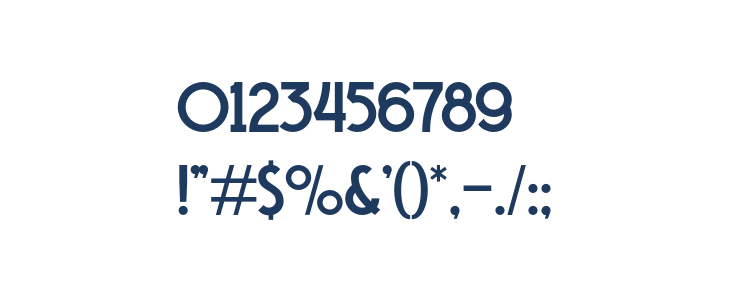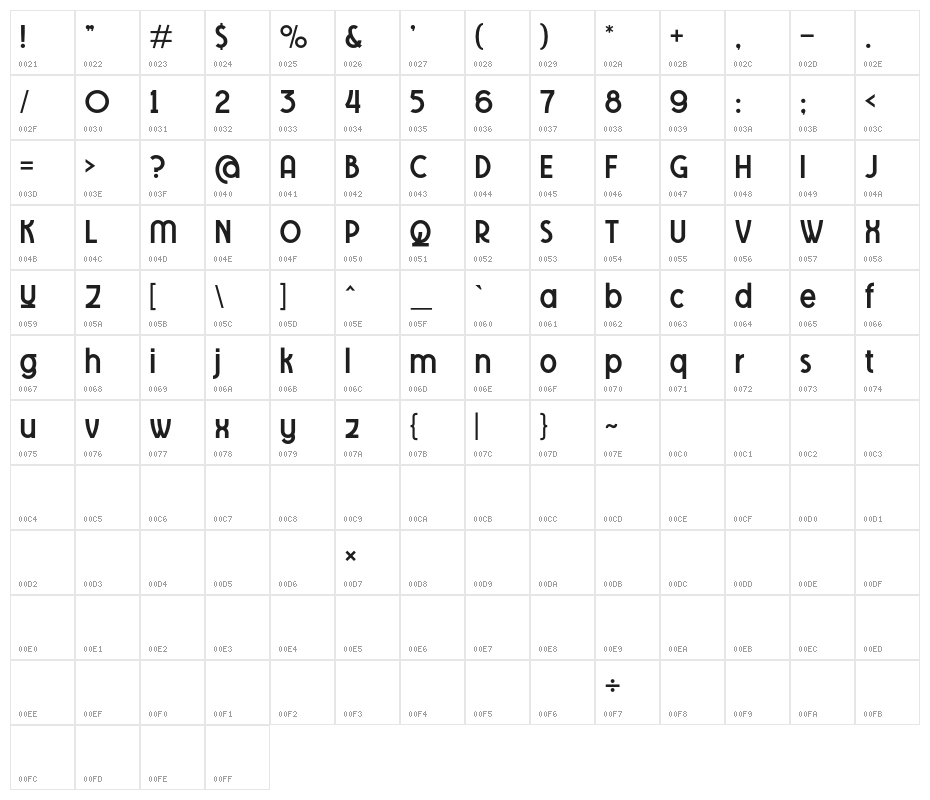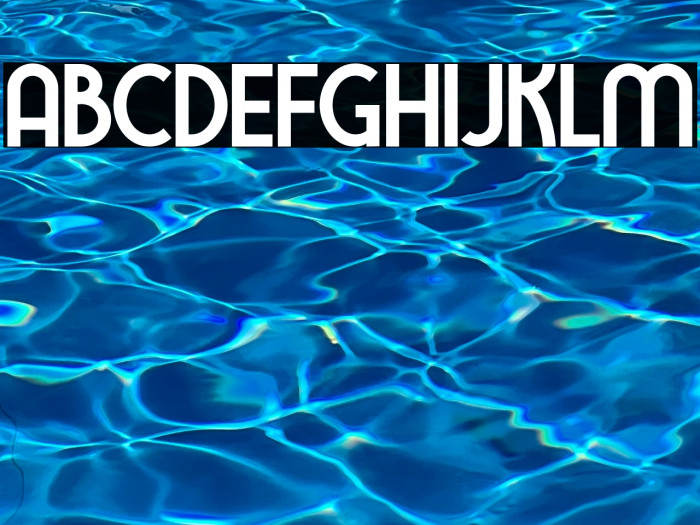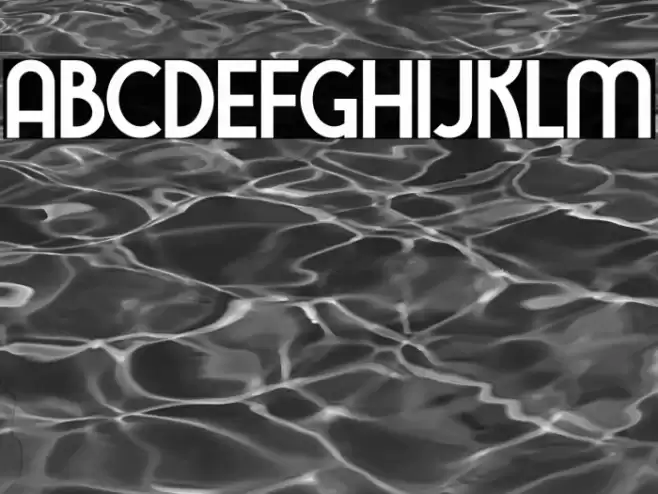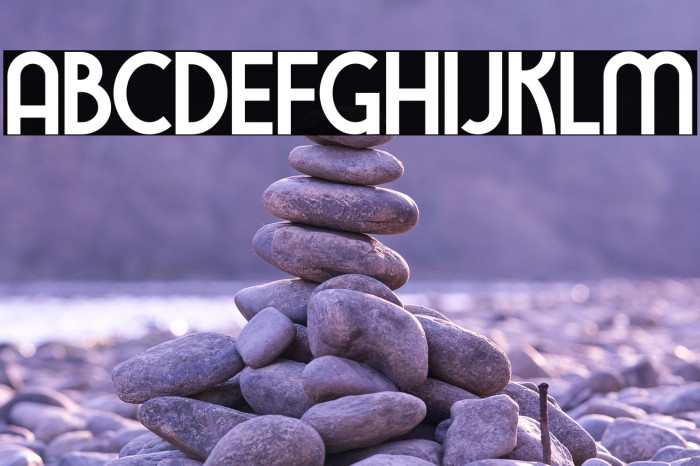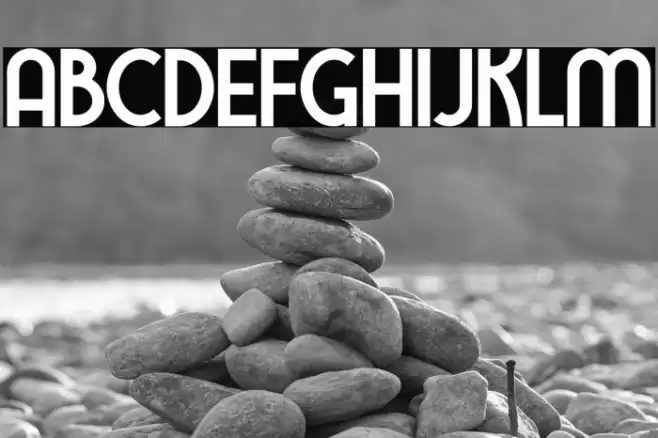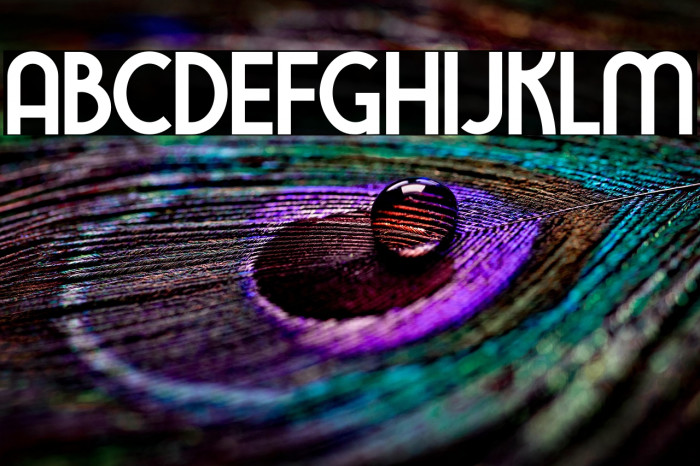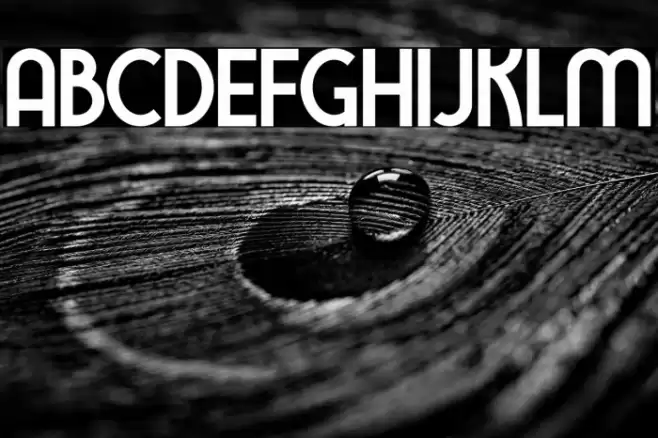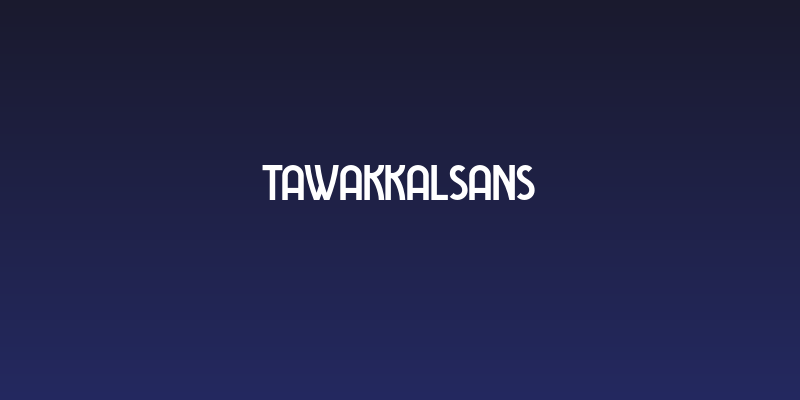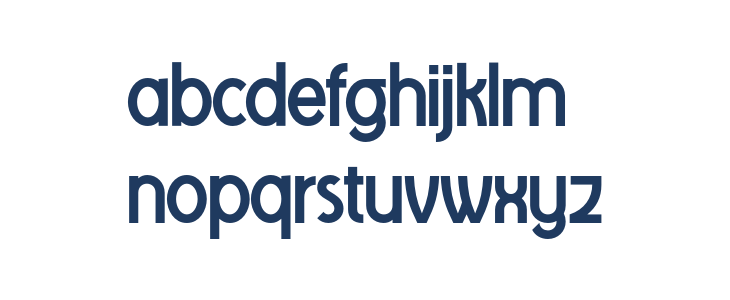
TawakkalSans Font
TawakkalSans Description
This font features a bold and modern sans-serif style with a geometric structure. The characters are clean and rounded, providing a contemporary look. The uppercase letters are uniform in height, while the lowercase letters maintain a consistent baseline with slight variations in ascenders and descenders. The numerals are proportional, matching the overall aesthetic of the alphabet. The special characters are designed to complement the letters, maintaining the same thickness and style. This font is highly legible and versatile, suitable for various design applications.
| Proposed Projects | Ideal for branding, advertising, headlines, and digital media projects. |